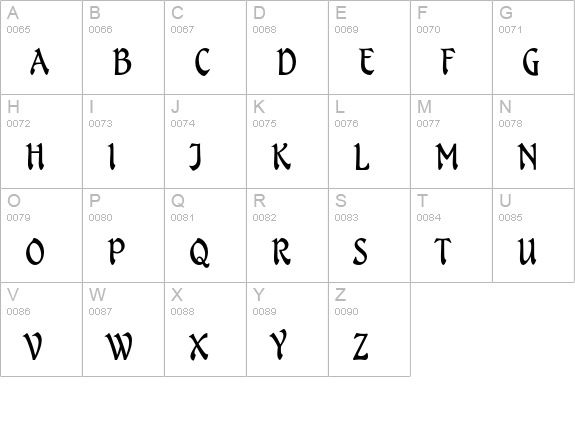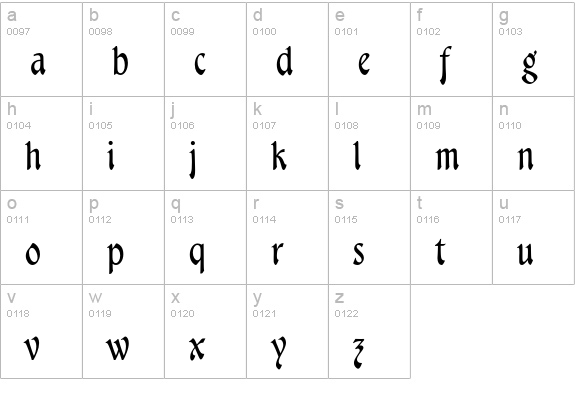
TarragonEF Font Details
TarragonEF font is a stunning and versatile typeface that will add a touch of elegance and sophistication to any design project. With its graceful curves and intricate details, this font is perfect for creating eye-catching headings, logos, and invitations. This font's unique and distinctive style sets it apart from other fonts, making it a fantastic choice for designers who want to make a bold statement. Whether used in print or digital media, TarragonEF font will captivate and engage viewers, leaving a lasting impression. One of the best things about TarragonEF font is that it is free! Yes, you read that right. This incredible font is freely available to download at FontsMarket.com. This means that you can add this exceptional font to your collection without spending a dime. Don't miss out on the opportunity to enhance your designs with the beauty and elegance of TarragonEF font. Download it today from FontsMarket.com and let your creativity soar. Whether you're a professional designer or a hobbyist, this font is sure to become a favorite in your toolkit.